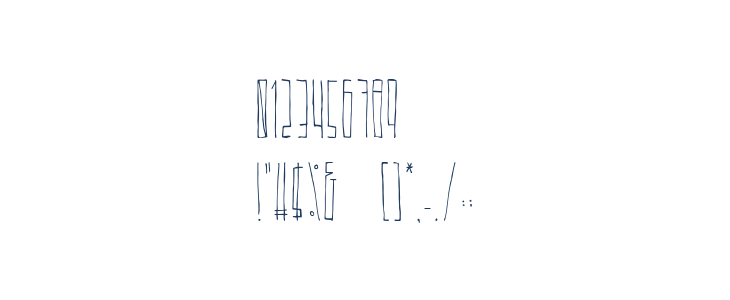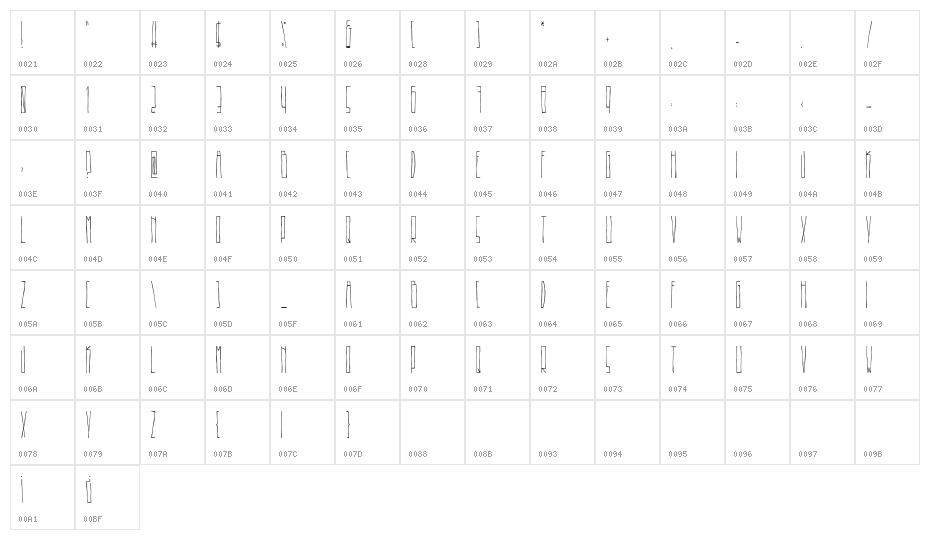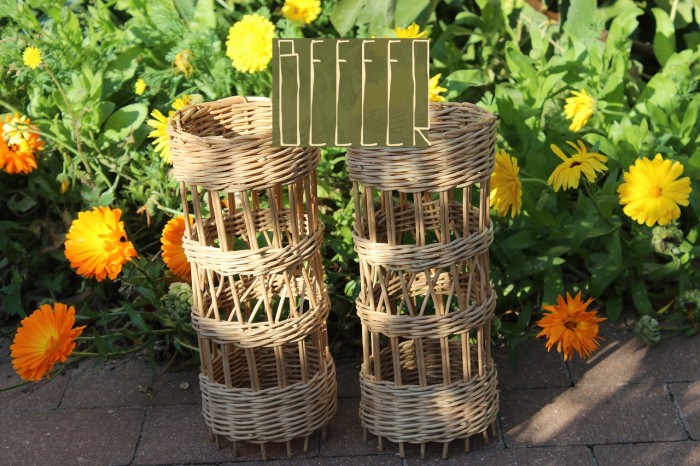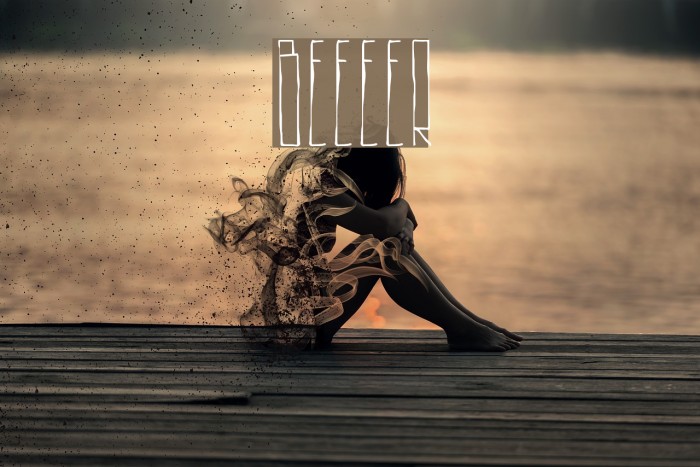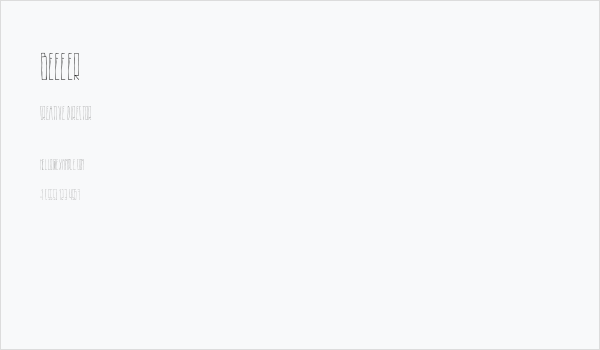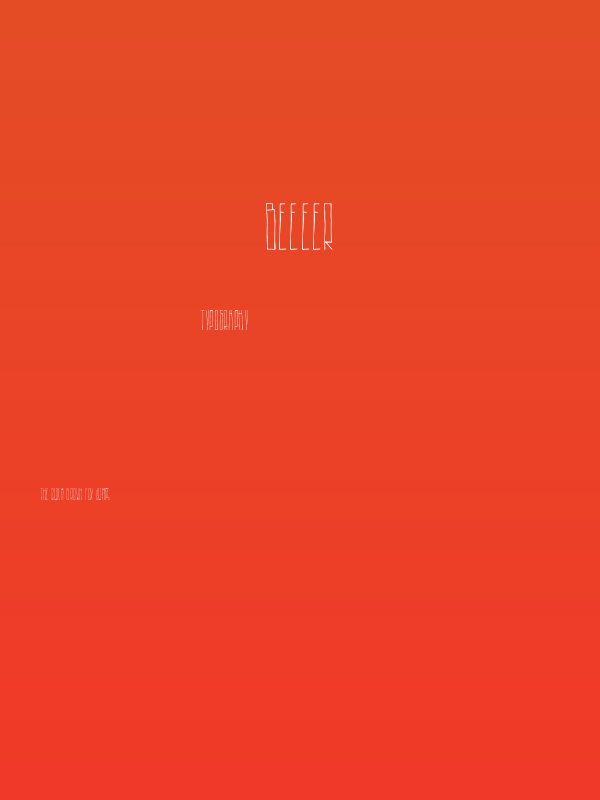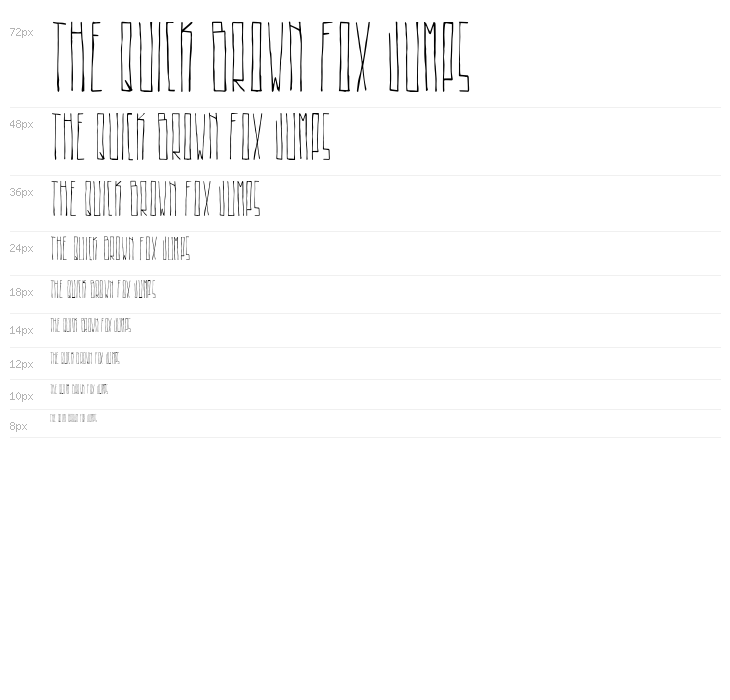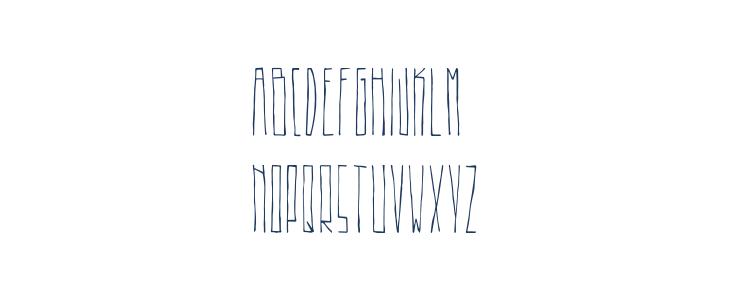
Beeeer Font
Beeeer Description
This font features a tall, narrow design with a hand-drawn aesthetic. The characters are elongated and have a slightly irregular, organic feel, giving them a unique and artistic appearance. The strokes are thin and consistent in width, which adds to the font's delicate and refined look. The uppercase and lowercase letters maintain a cohesive style, while the numerals and special characters complement the overall design. This font's distinctive style makes it stand out, ideal for creative and expressive projects.
Overall StyleArtistic, Hand-drawn
Use CaseHeadlines, Artistic projects, Posters
Proposed ProjectsIdeal for artistic projects, posters, album covers, and creative branding.